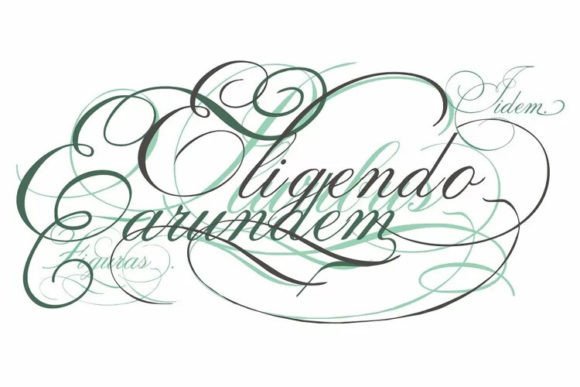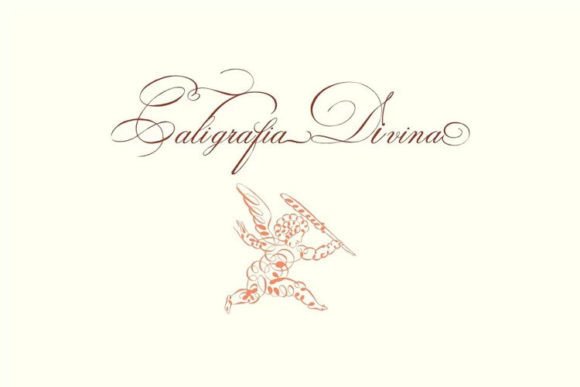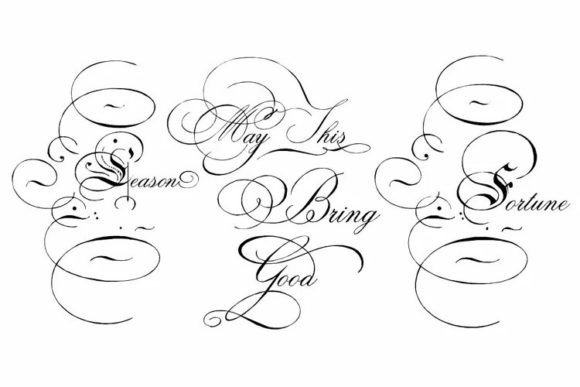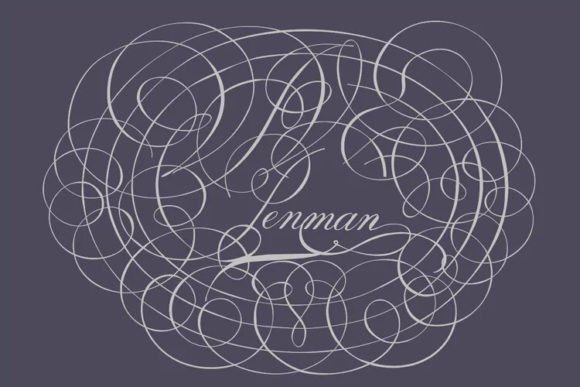
Introduction to Indenture English Penman Font
Have you ever found yourself lost in the world of historical documents, mesmerized by the elegant scripts and flourishes of old? Perhaps you’re working on a creative project that requires a touch of authenticity, a dash of high quality design. Whatever the case, you’re in luck – we’re about to dive into one of the most valuable design resources out there: the Indenture English Penman Font.
This stunning font is based on original English and American indenture contracts from the eighteenth and nineteenth centuries, meticulously researched to capture the essence of roundhand scripts and paragraph versals in Old English style. With over 800 glyphs at your disposal, you’ll be able to create perfectly crafted ancient documents, complete with flourishes and embellishments that will transport your audience back in time.
Key Features of Indenture English Penman Font
- High-quality font design, ideal for creative projects and design resources
- Unique, hand-drawn style with intricate details and flourishes
- Large character set, including a wide range of languages and special characters
Honest Review: Indenture English Penman Font
As a designer, I’m always on the lookout for high-quality design resources that can elevate my creative projects. The Indenture English Penman Font is a free download that caught my attention, and I’m excited to share my honest review with you.
- ✨ Elegant and refined lettering that evokes a sense of nostalgia and sophistication
- ✨ High-quality font that’s perfect for creative projects requiring a classic, vintage feel
- ⚠️ The font’s design may not be suitable for modern, minimalist projects
Overall, the Indenture English Penman Font is a solid addition to any designer’s toolkit. While it may not be suitable for every project, its high-quality design and free download make it a valuable resource for creative professionals. With a bit of experimentation and patience, you can unlock its full potential and add a touch of elegance to your designs.
To get the most out of the Indenture English Penman Font, use it in combination with other design elements, such as graphics and images. You can also experiment with different font sizes and colors to create a unique and eye-catching design.
The Indenture English Penman Font is commonly used in a variety of design projects, including business cards, logos, brochures, and websites. It’s also a popular choice for creative projects, such as invitations, menus, and signage.